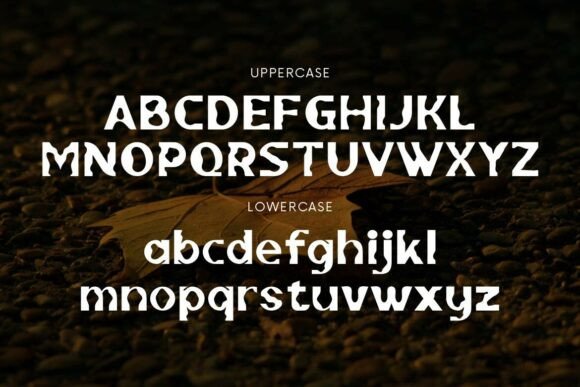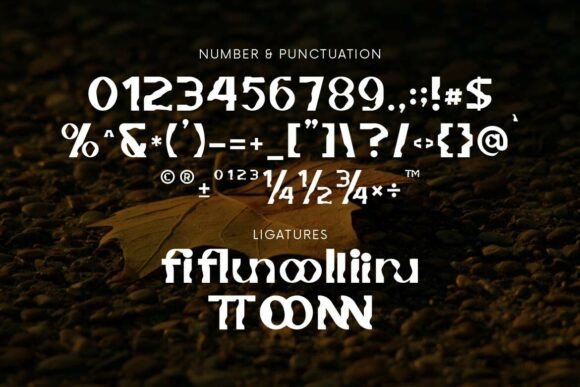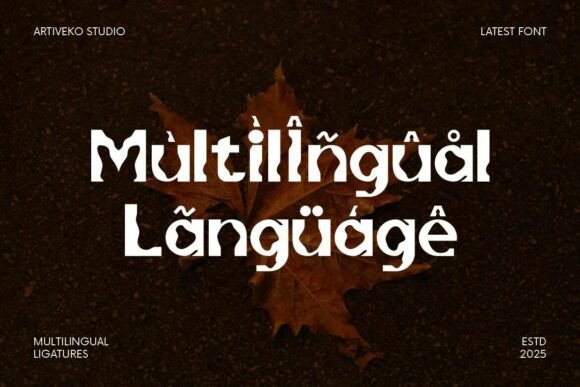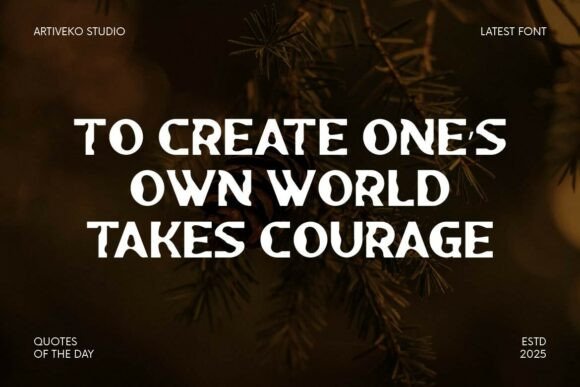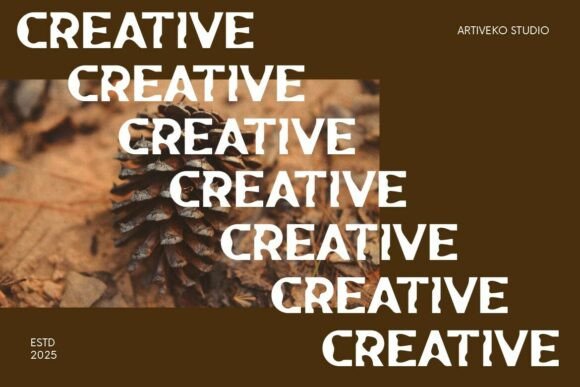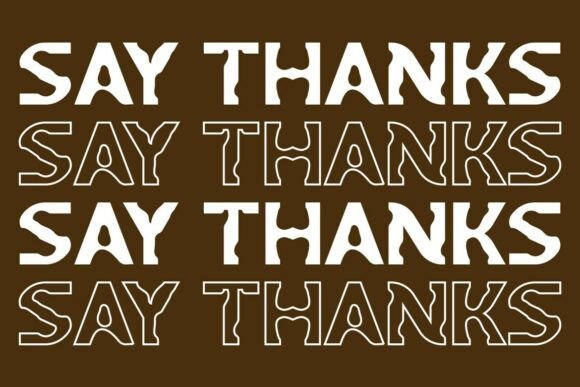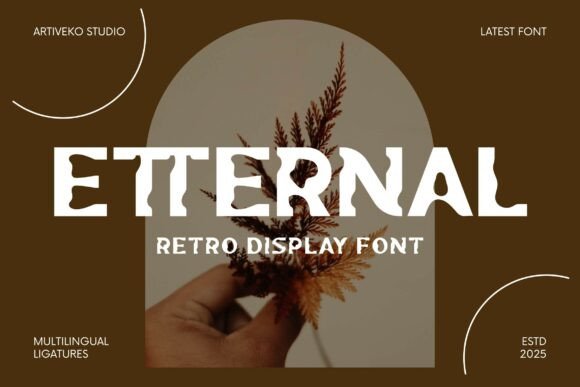
Introducing Etternal Font: Elevate Your Typography with Sophistication and Style
In the world of typography, a great font can make all the difference in elevating your design to the next level. If you’re a designer, craftsperson, or simply someone who appreciates beautiful typography, you’re in luck. Etternal Font is a stunning display font that is sure to turn heads with its refined and striking appearance. In this article, we’ll dive into the features and benefits of Etternal Font, and explore how it can be used to add a touch of luxury and sophistication to your designs.
A Font that Exudes Sophistication and Style
Etternal Font is a masterfully crafted display font that boasts sharp details, graceful curves, and balanced proportions. Its refined appearance makes it perfect for a wide range of applications, from luxury branding and editorial headlines to magazine covers, packaging, invitations, and upscale logo designs. Whether you’re looking to create a bold statement or add a touch of elegance to your design, Etternal Font is the perfect choice.
Key Features of Etternal Font
- Sharp Details: Etternal Font features sharp, precise details that give it a crisp and modern appearance.
- Graceful Curves: The font’s curves are smooth and flowing, adding a touch of elegance and sophistication to your designs.
- Balanced Proportions: Etternal Font’s balanced proportions ensure that it looks great in a variety of sizes and applications.
- Luxury Aesthetic: The font’s refined appearance makes it perfect for luxury branding, editorial headlines, and other high-end applications.
Use Cases for Etternal Font
Etternal Font is a versatile font that can be used in a wide range of applications, including:
- Luxury Branding: Use Etternal Font to create a sophisticated and elegant brand identity that stands out from the crowd.
- Editorial Headlines: Add a touch of luxury and sophistication to your editorial headlines with Etternal Font.
- Magazine Covers: Use Etternal Font to create eye-catching magazine covers that grab attention.
- Packaging: Elevate your packaging designs with Etternal Font’s refined and elegant appearance.
- Invitations: Use Etternal Font to create beautiful and sophisticated invitations for special occasions.
- Upscale Logo Designs: Create a luxurious and elegant logo design with Etternal Font.
Why Choose Etternal Font?
With so many fonts to choose from, why should you choose Etternal Font? Here are just a few reasons:
- Unique and Distinctive: Etternal Font is a unique and distinctive font that will help your designs stand out from the crowd.
- High-Quality: Etternal Font is a high-quality font that is designed to look great in a variety of sizes and applications.
- Versatile: Etternal Font can be used in a wide range of applications, from luxury branding to editorial headlines.
- Elegant and Sophisticated: Etternal Font’s refined appearance makes it perfect for designs that require a touch of elegance and sophistication.
In conclusion, Etternal Font is a stunning display font that is sure to elevate your typography to the next level. With its sharp details, graceful curves, and balanced proportions, Etternal Font is perfect for luxury branding, editorial headlines, magazine covers, packaging, invitations, and upscale logo designs. Whether you’re a designer, craftsperson, or simply someone who appreciates beautiful typography, Etternal Font is a great choice. So why wait? Download Etternal Font today and start creating stunning designs that exude sophistication and style.